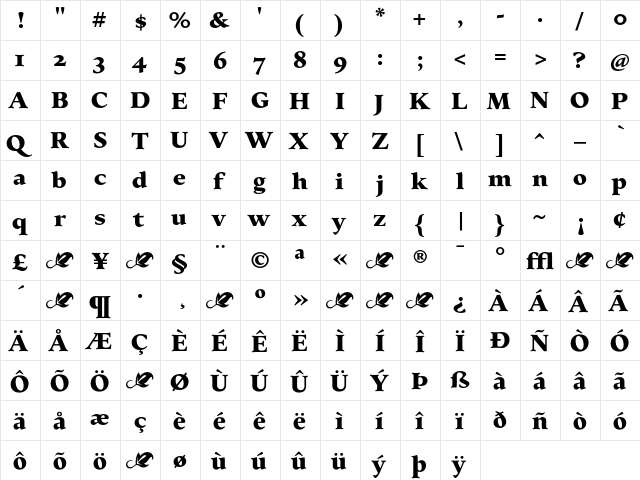
Elmhurst Black
Design Context for Elmhurst Typeface
Elmhurst is a composed and adaptable typeface that performs quietly and consistently across a wide range of design contexts.
Pro Tip: Pair Elmhurst with a font of contrasting weight or personality to build a more expressive typographic hierarchy.